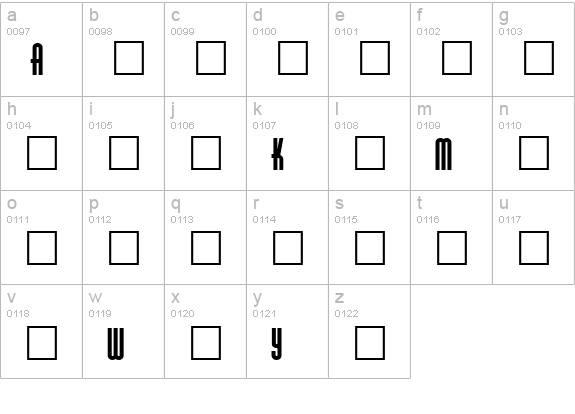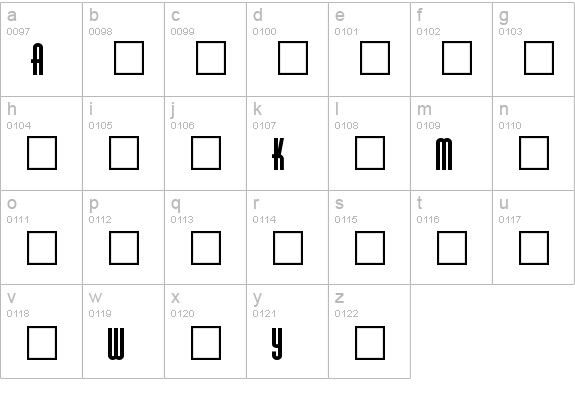
DinerObese Font Details
DinerObese font is a delightful and bold typeface that exudes a sense of retro charm and nostalgia. With its thick, rounded letters, this font is perfect for creating eye-catching headlines, posters, and other design projects that require a touch of vintage flair. Its playful yet sturdy appearance makes it a versatile choice for a wide range of applications. What sets DinerObese font apart is not just its unique design, but also the fact that it is available for free download at FontsMarket.com. This means that you can easily add this charming font to your collection without any cost, making it a valuable asset for any designer or creative professional. Whether you're working on a quirky branding project, a fun invitation design, or anything in between, DinerObese font is sure to add a touch of personality and style to your work. Download it today and let your creativity shine with this delightful typeface!